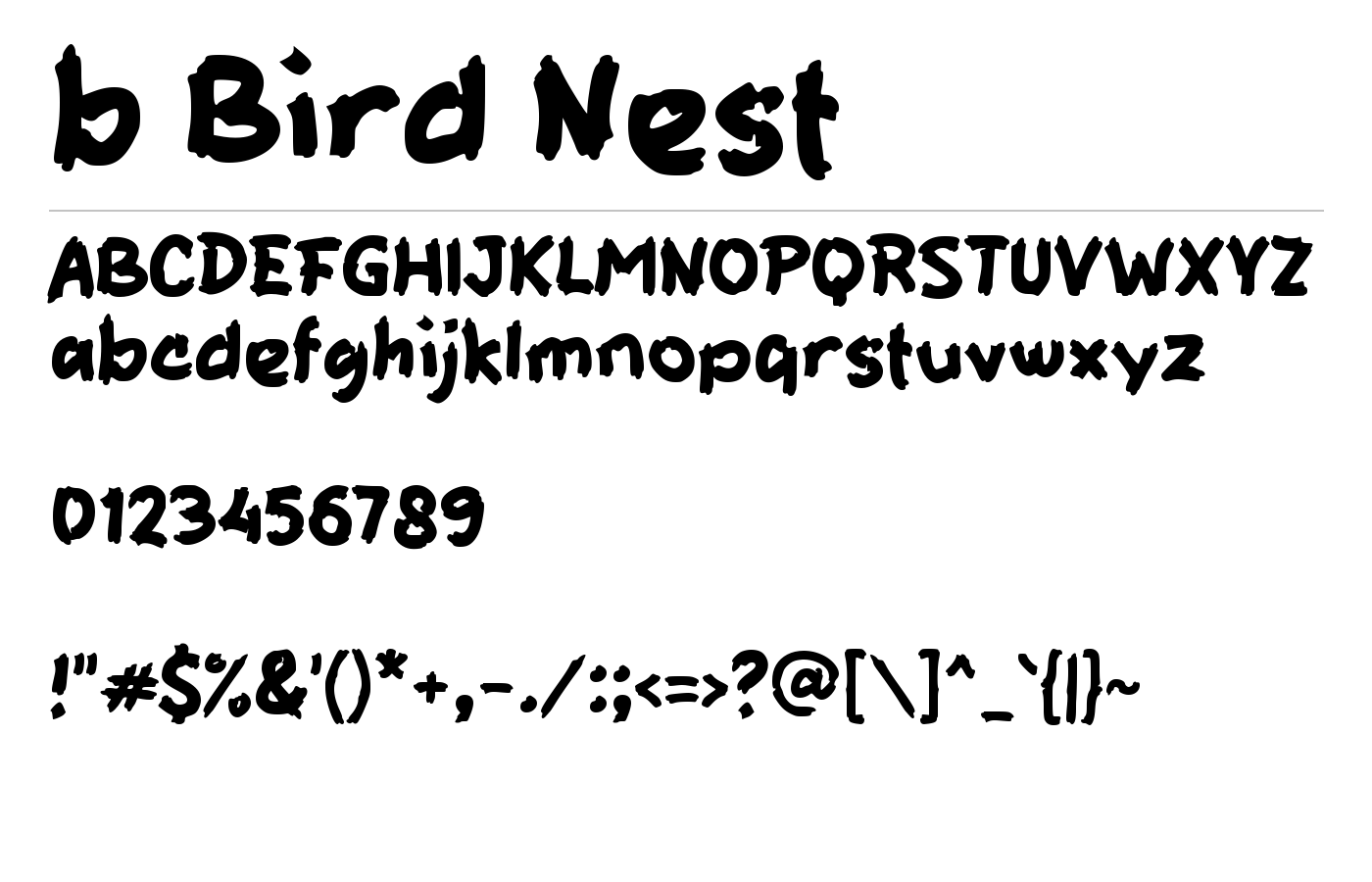
b Bird Nest is a bold, playful handwritten font with a casual, organic feel reminiscent of hand-painted lettering. Its uneven strokes and quirky character shapes give it a lively and approachable personality, making it ideal for creative projects, children's materials, or informal branding that seeks a fun, friendly vibe. This font works well for headlines, logos, and packaging that benefit from a unique, hand-crafted look.
b Bird Nest Font
About b Bird Nest Font